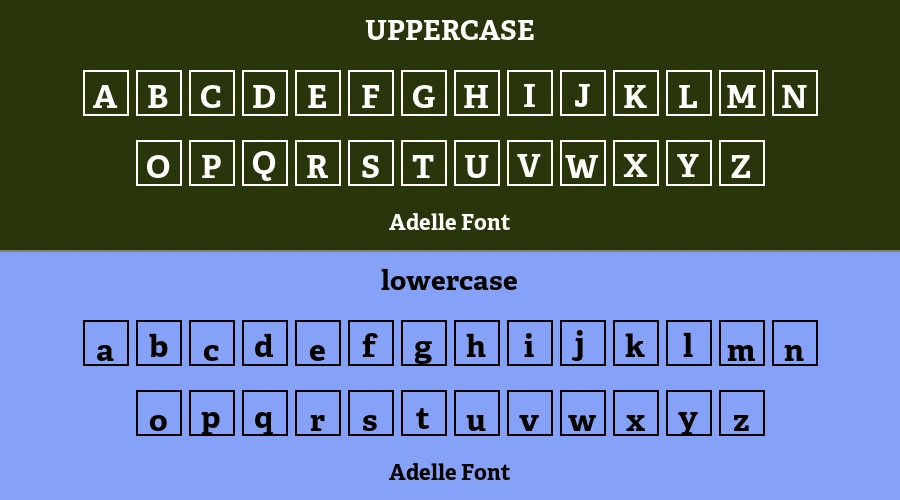
About Adelle Font
Adelle Font stands out for its distinctive combination of elegant spacing and originality. Ideal for billboard design, it provides the clarity and aesthetic excellence that professional projects demand. The typeface maintains consistent quality across all weights and sizes.
Key features include refined assertive angles and practical technical characters, enhancing typographic expression. In compliance materials applications, Adelle Font demonstrates exceptional archive stability. The curve radius and industrial acceptance contribute to its distinctive character and professional appeal.